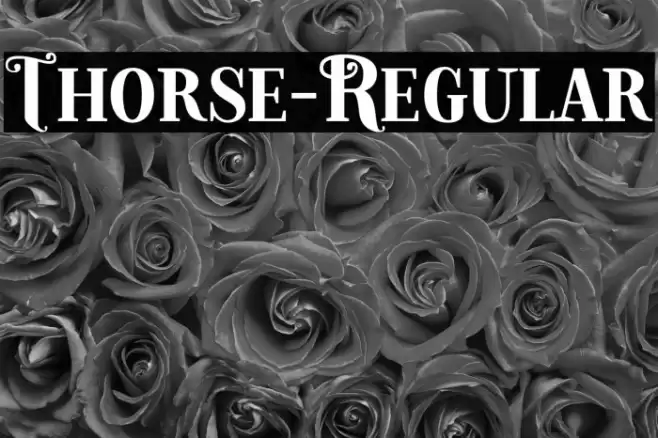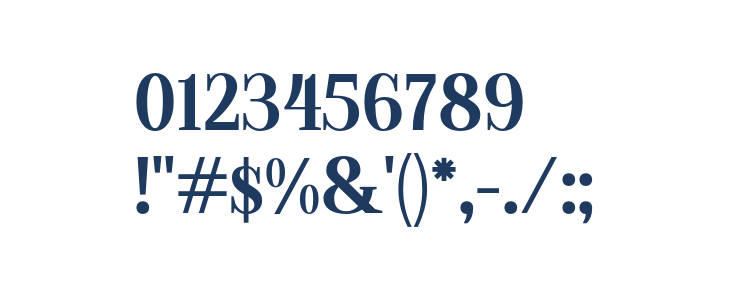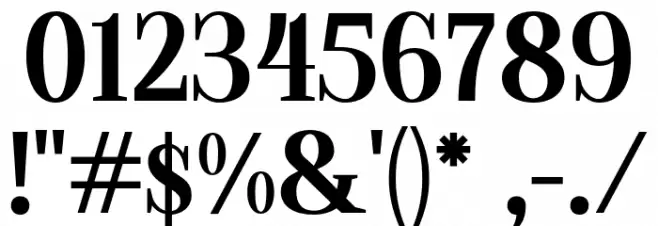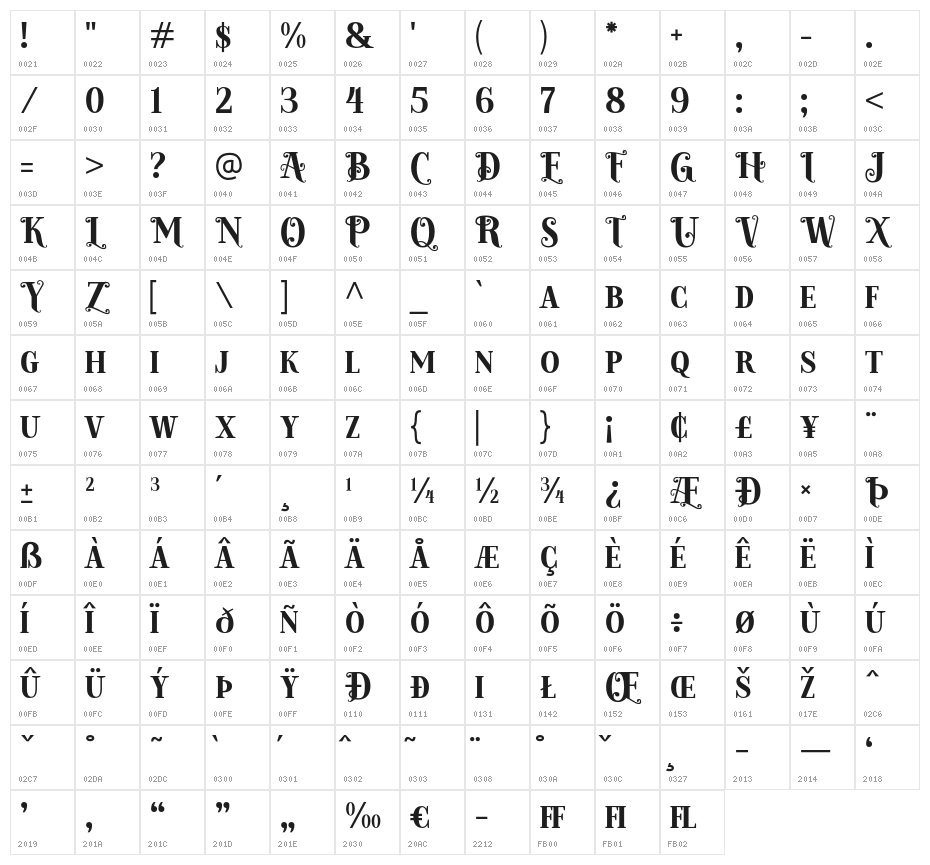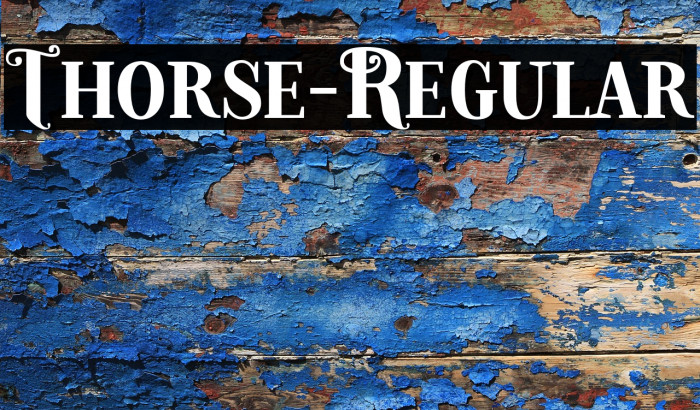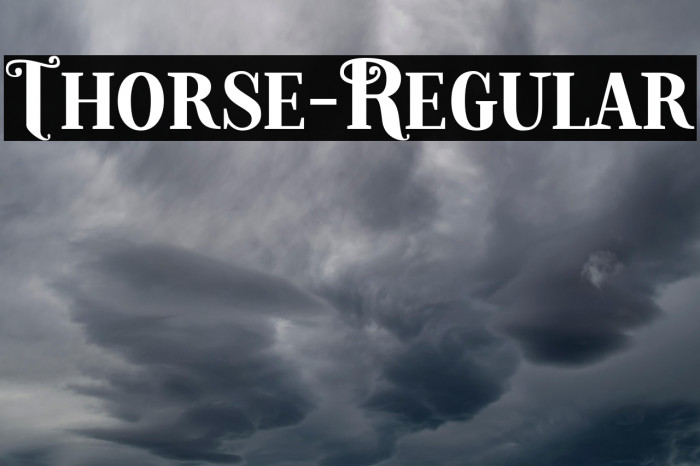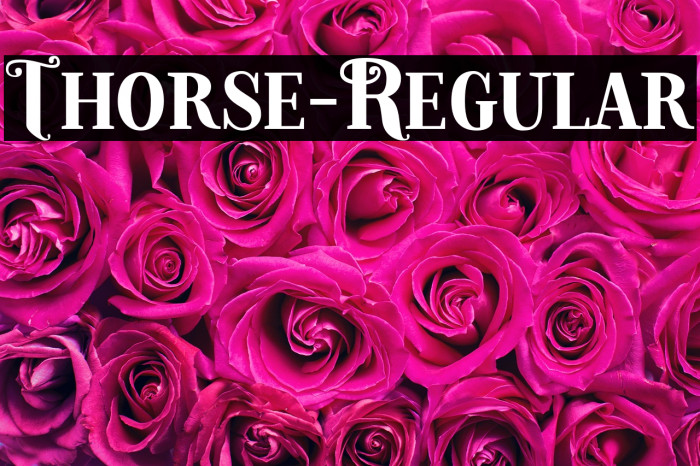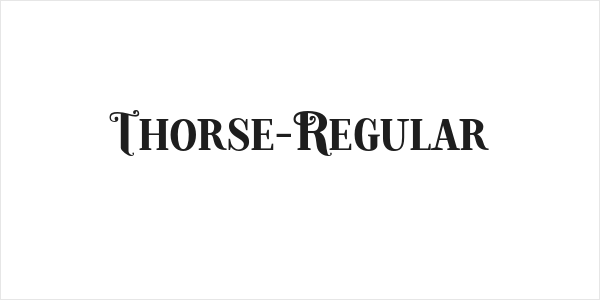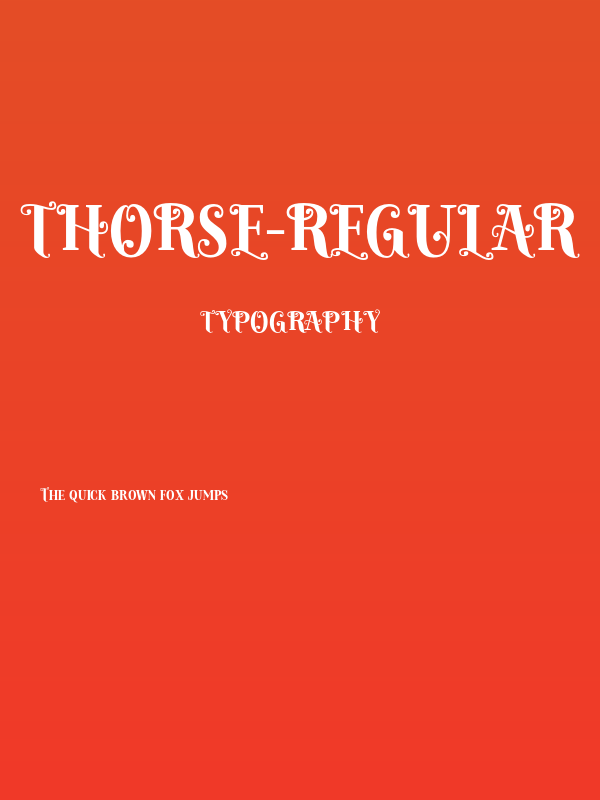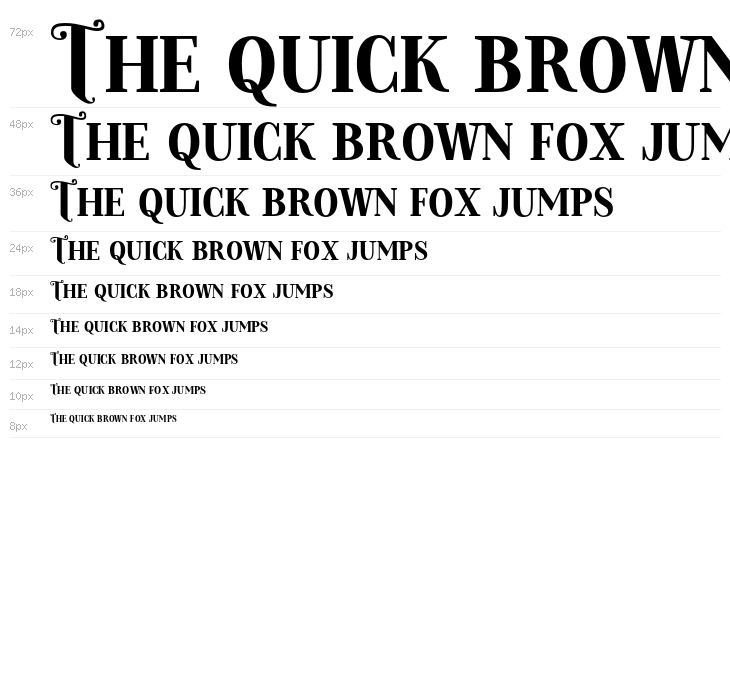
Thorse-Regular Font
Thorse-Regular Description
This font features a decorative style with ornate serifs and flourishes, giving it a unique and elegant appearance. The uppercase letters are adorned with intricate curls and swashes, adding a touch of sophistication and flair. The lowercase letters maintain a more traditional serif style, providing a balanced contrast to the decorative uppercase. The numerals are bold and clear, ensuring readability while maintaining the overall aesthetic. Special characters are designed with the same attention to detail, making them suitable for a variety of creative applications.
A decorative serif font with ornate flourishes and elegant style from Regular fonts.